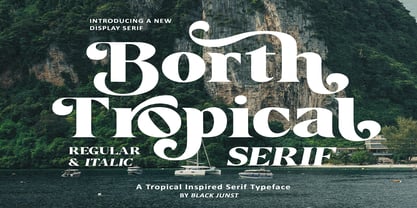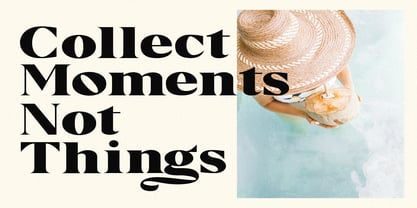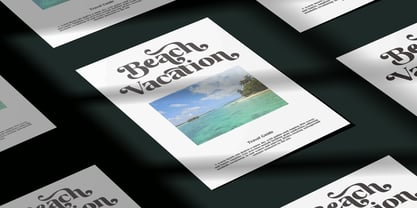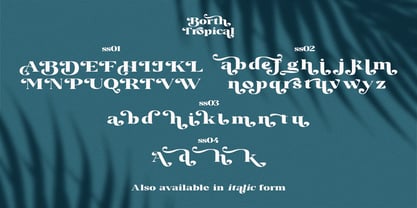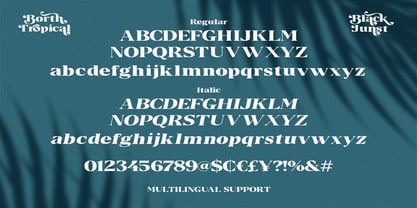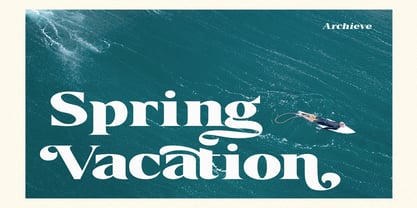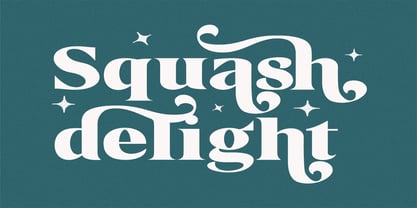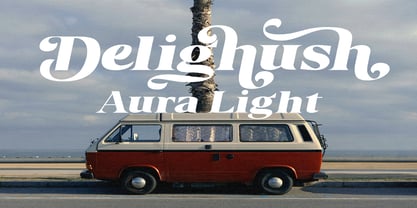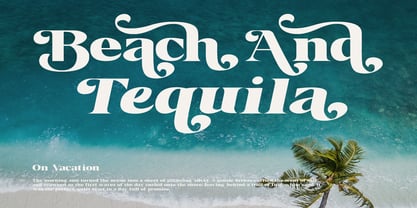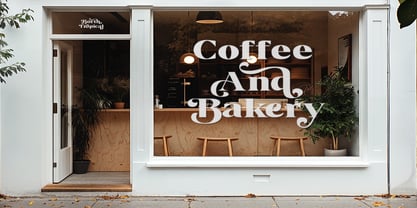
Borth Tropical
by Black Junst
The Borth Tropical Font Family was designed by Maulana Semar and published by Black Junst. Borth Tropical contains 2 styles and family package options. More about this family
Borth Tropical Serif is a modern display serif typeface inspired by tropical landscapes and organic forms. It features bold letter shapes, smooth curves, and elegant details that create a warm yet confident visual presence. This typeface is designed to perform beautifully in branding, editorial layouts, posters, packaging, and lifestyle-focused projects. Its distinctive character makes it ideal for headlines and display use, while still maintaining clarity and balance. Borth Tropical Serif includes Regular and Italic styles, providing flexibility for expressive typographic compositions across print and digital media. Carefully crafted to deliver a premium and natural feel for professional design work Features : Uppercase & lowercase characters Regular & Italic styles Numerals & punctuation Multilingual support Ligatures Alternate characters
Designers: Maulana Semar
Foundry: Black Junst